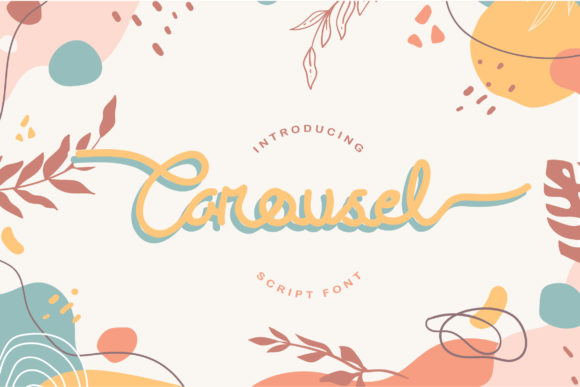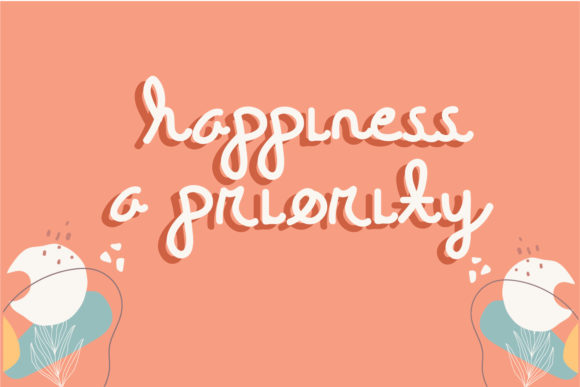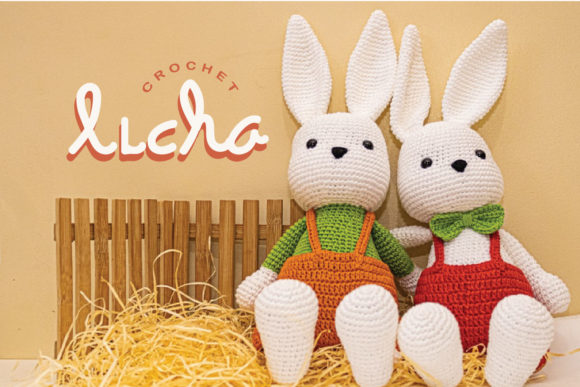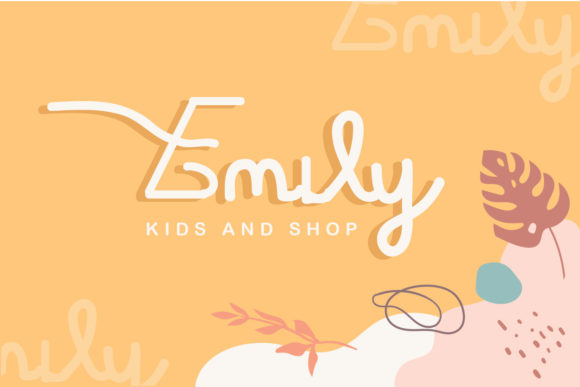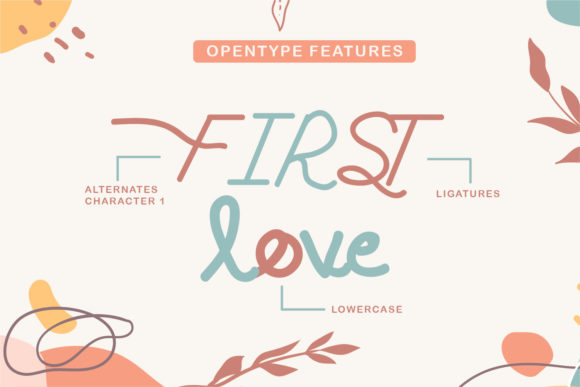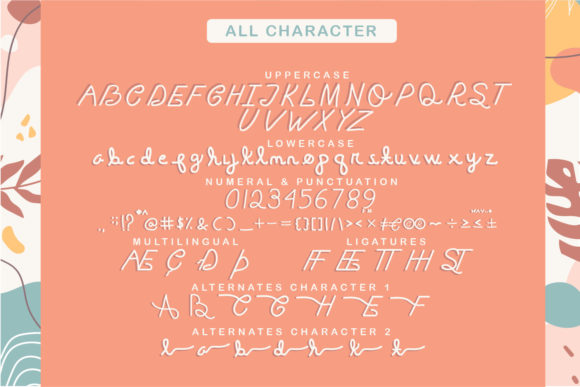
Carousel Font
Carousel, a slim, delicate, and vintage-styled script font, graces the design landscape with its beautiful and balanced character, seamlessly fitting into a large design pool. This font, encoded with PUA, opens up a world of possibilities, providing easy access to its myriad glyphs and swashes.
The charm of Carousel lies in its slim and delicate design, capturing the essence of vintage styling. Each character carries a sense of nostalgia, adding a touch of timeless elegance to any project. Its versatility allows it to effortlessly integrate into various design contexts, making it a valuable asset for designers.
With PUA encoding, Carousel becomes even more versatile. Designers can effortlessly explore the extensive range of glyphs and swashes, customizing their projects with ease. This functionality empowers creativity, allowing for a personalized touch that enhances the overall aesthetic of any design.
Carousel is more than just a font; it’s a design companion that adds a touch of sophistication to logos, branding projects, invitations, stationery, and various other creative endeavors. Its vintage styling sets it apart, making it a standout choice for those seeking a font that effortlessly blends slim delicacy with timeless charm.
In essence, Carousel is a visual journey, a carefully crafted script font that not only meets but exceeds the expectations of designers looking to infuse their projects with vintage elegance and delicate style.